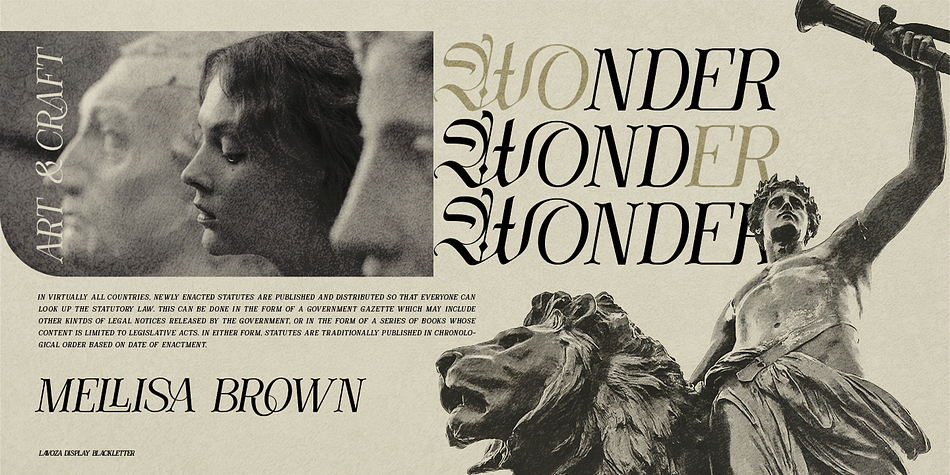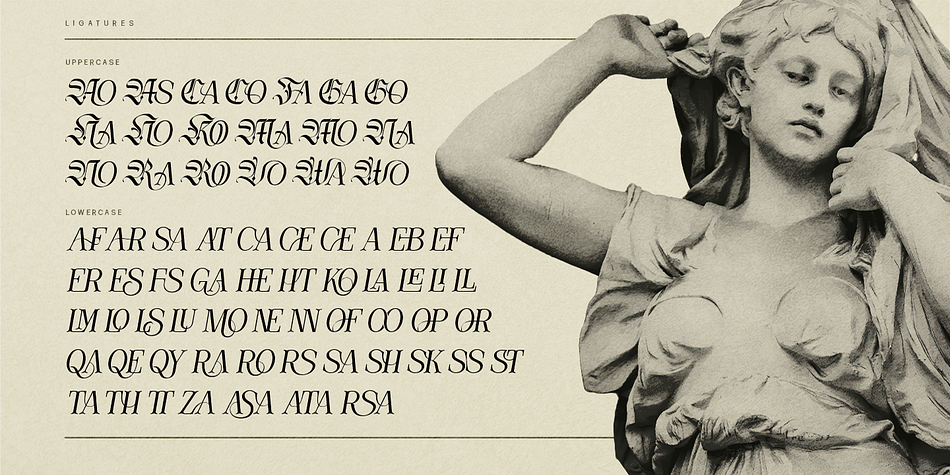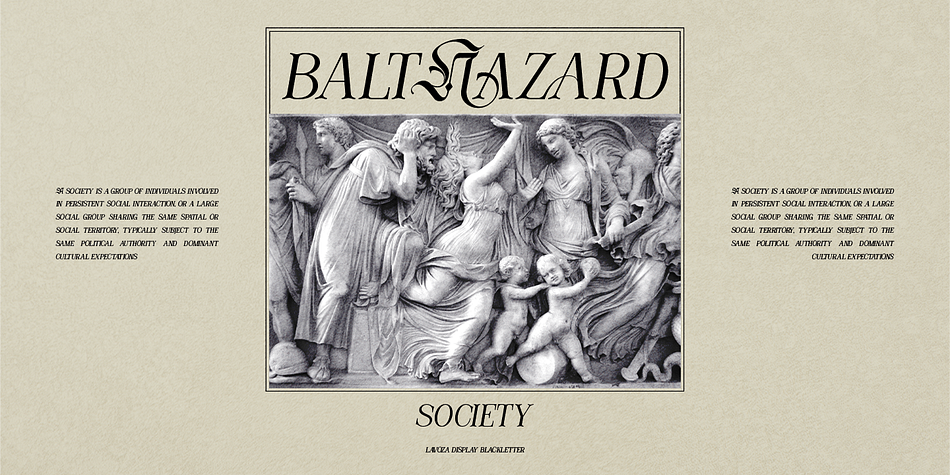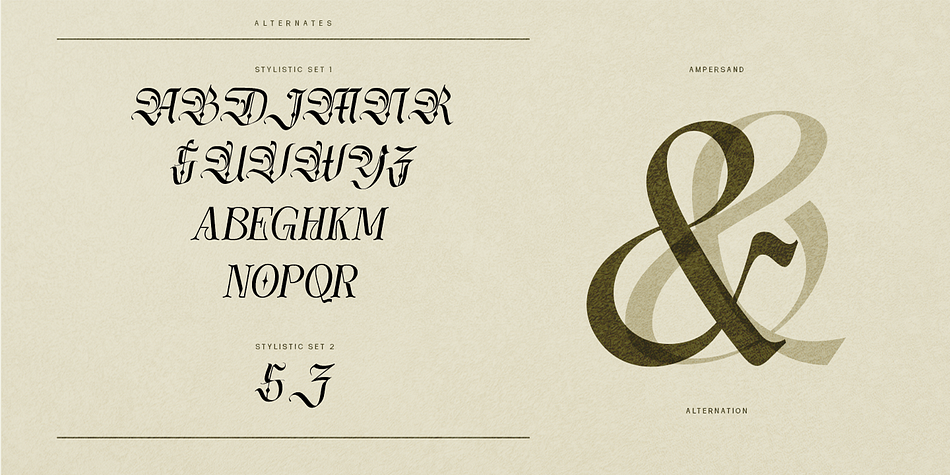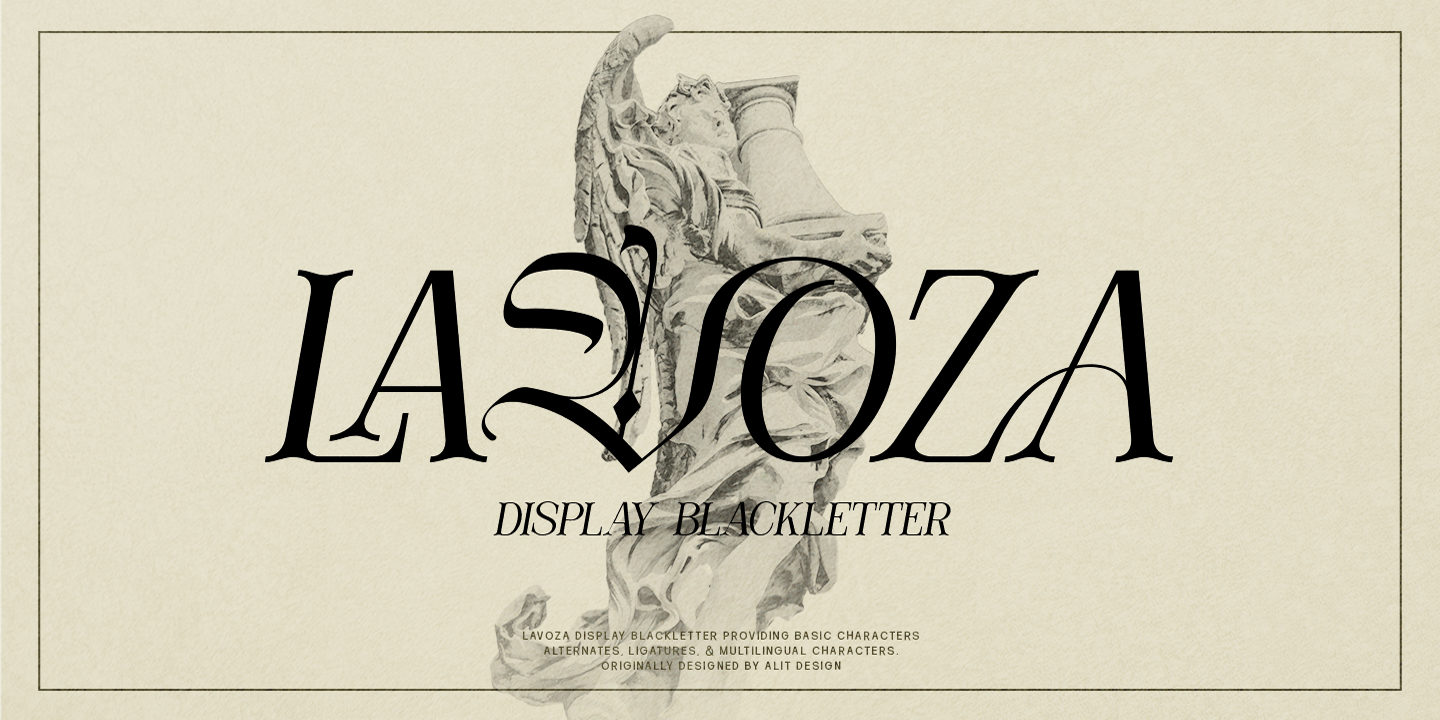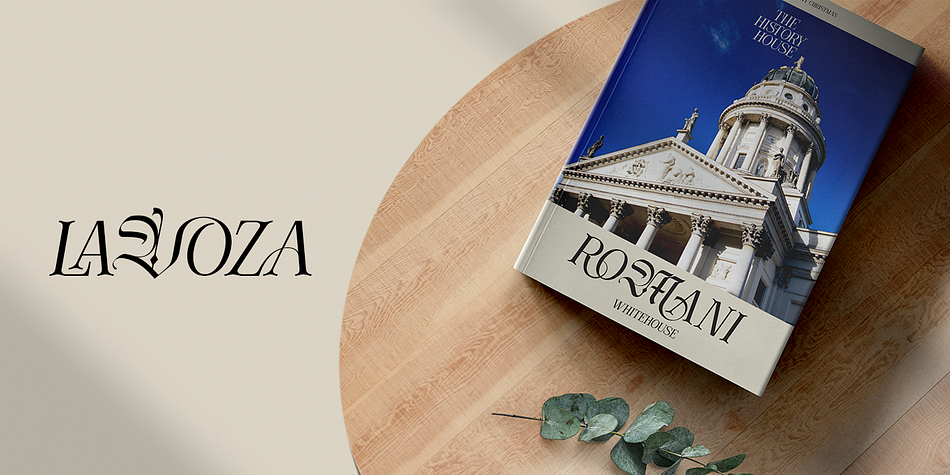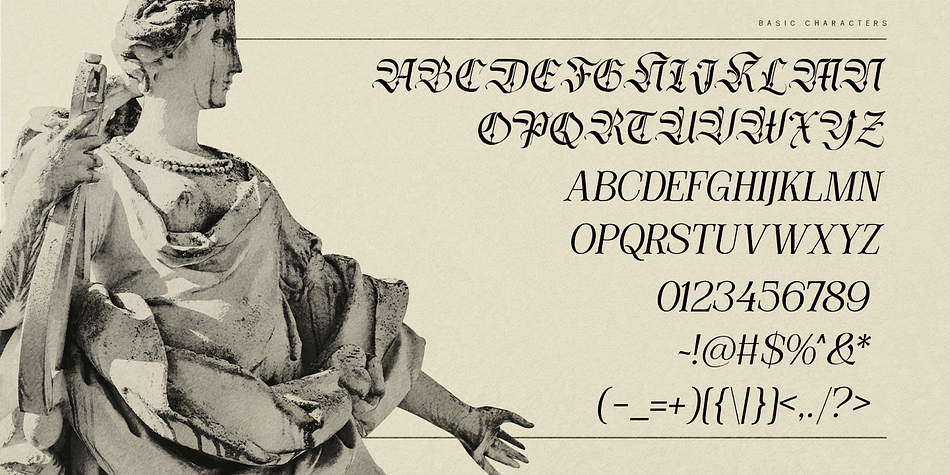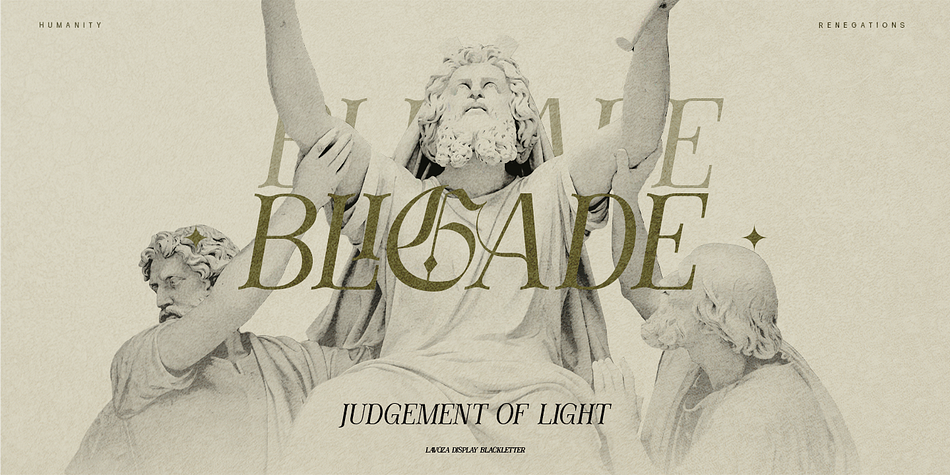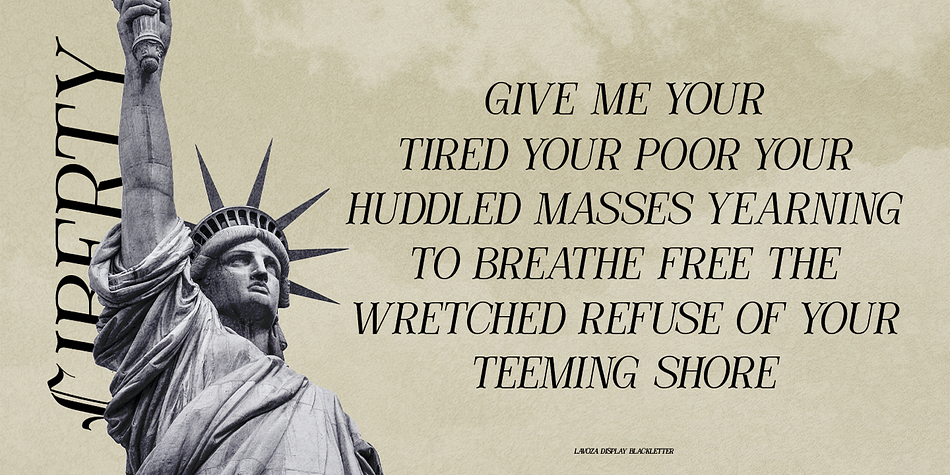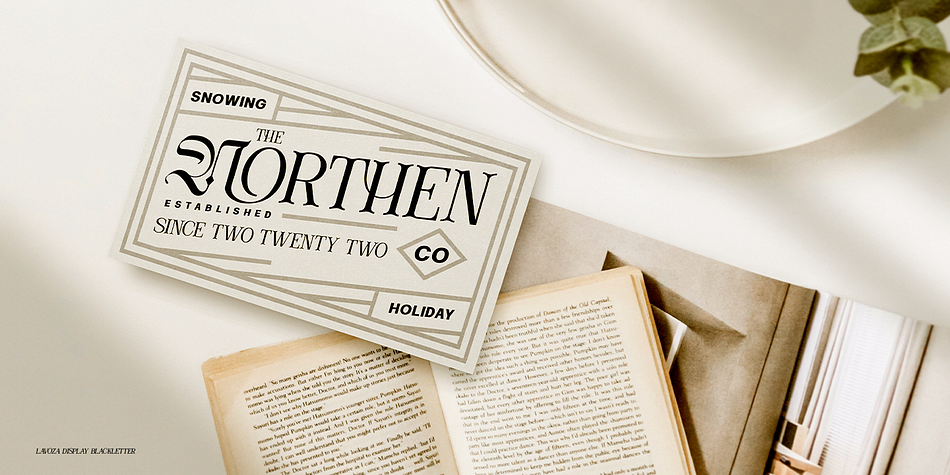
Lavoza
Designed by Alit Suarnegara, Lavoza is a blackletter and display serif font family published by Alit Design.
Presenting the LAVOZA typeface from alitdesign.
LAVOZA font is designed by combining a slant blackletter font with a classic serif font style. The Lavoza font is inspired by a classic roman design that we apply modern elements according to current trends. This bold classic concept will create a design that is frightening but still looks modern and elegant. The Lavoza font is perfect for the design of young people who dare to be different and unique from the current trending design concept. Lavoza font is highly recommended to be a collection of fonts for current or future design creation.
LAVOZA is perfect for magazine cover designs, brochures, flyers. Instagram ads, Canva Design and so on with unique and modern and brave concepts. besides that this font is very easy to use both in design and non-design programs because everything changes and glyphs are supported by Unicode (PUA).
The “LAVOZA"contains 587 glyphs with many unique and interesting alternative options.